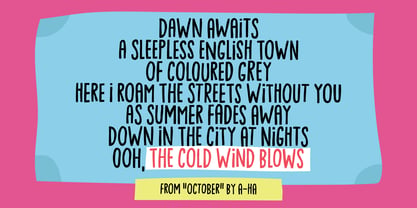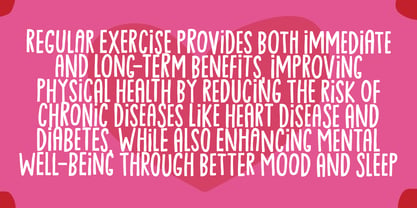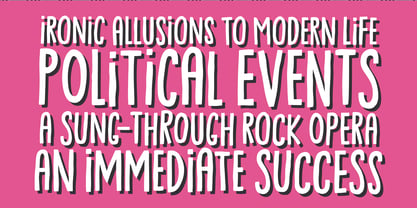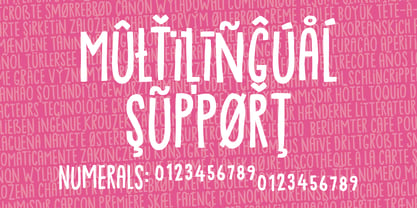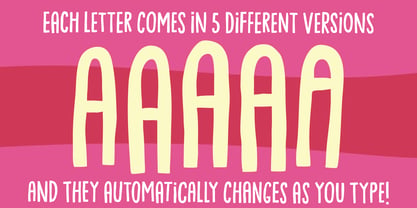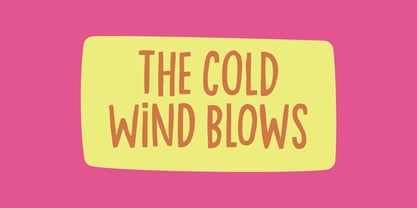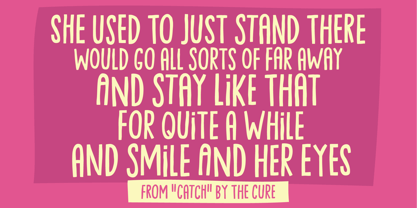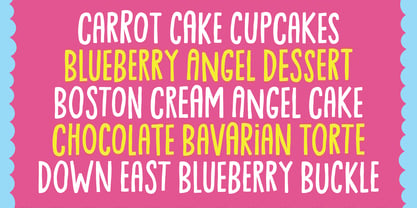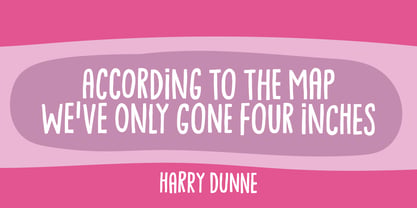
The cold wind blows
by Bogstav
The The cold wind blows Font Family was designed by Jakob Fischer and published by Bogstav. The cold wind blows contains 2 styles and family package options. More about this family
The phrase “The cold wind blows” is burrowed from the song “October” by Norwegian band A-ha. However, there IS a cold wind blowing these days in my part of the world, Copenhagen, Denmark. And a fun fact is that the month of creating this font is October:) The font is handmade and slightly cleaned up digitally, but keeping the original handmade and organic feeling. Personally I think that projects such as flyers, invitations, greeting cards, posters and product for organic foods or packaging would be a suitable use for "The cold wind blows" - but I will let it be up to you to decide :)
The cold wind blows
Bogstav.com was founded in september 2017 and is run by Jakob Fischer (who also runs pizzadude.dk) I concentrate on creating handmade quality fonts and my style is mostly organic looking, cartoonish or in some way influenced by grafitti. All fonts are created by me and comes straight out of Copenhagen, Denmark - just like Caroline Wozniacki, Viggo Mortensen, Mads Mikkelsen, Carlsberg and H.C. Andersen...and Carlsberg! :)